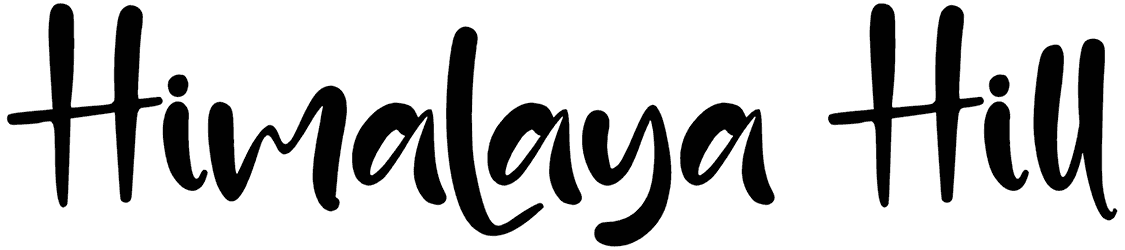
Himalaya Hill Font
The Himalaya Hill, script font, is a work of art, all curves, and fun. Elegant and whimsical, it’s a great choice for invitations, greeting cards, posters, and more. Himalaya Hill’s graceful, flowing letters and distinct…
The Himalaya Hill, script font, is a work of art, all curves, and fun. Elegant and whimsical, it’s a great choice for invitations, greeting cards, posters, and more. Himalaya Hill’s graceful, flowing letters and distinctive personality make it a great choice for drawing attention to your work.